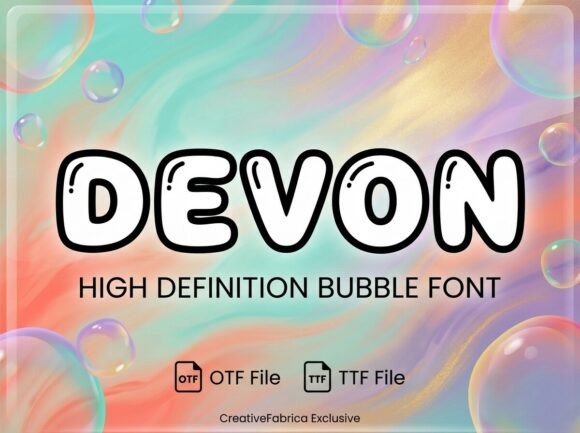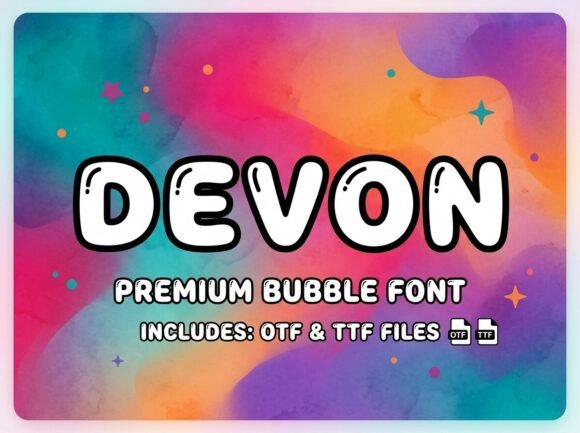
Introducing Devon Font: The Playful and Effervescent Typeface
Are you looking for a font that can add a touch of playfulness and fun to your designs? Look no further than Devon Font, a lighthearted display typeface that captures the essence of a carefree and lively spirit. With its unique and eye-catching design, Devon Font is perfect for creating engaging and memorable brand identities, invitations, logos, and social media headers.
Inspired by Glossy Soap Bubbles
Devon Font features thick, rounded letterforms that are designed to mimic glossy soap bubbles. The font’s chunky structural weight and airy personality make it perfect for creating a fun and playful atmosphere in your designs. The rounded letterforms also give the font a friendly and approachable feel, making it ideal for brands and businesses that want to appeal to a younger audience.
Rhythmic Highlight Accents for a 3D Effect
One of the standout features of Devon Font is its rhythmic “highlight” accents that create a 3D reflective effect. These accents add a touch of sophistication and depth to the font, making it perfect for creating high-impact designs that grab attention. The 3D effect also gives the font a sense of movement and energy, making it ideal for dynamic and playful brands.
Perfect for Independent Children’s Bath Product Branding
Devon Font is the premier choice for independent children’s bath product branding. The font’s playful and fun design makes it perfect for creating engaging and memorable brand identities that appeal to kids and parents alike. Whether you’re creating a brand identity for a children’s soap, shampoo, or bath bomb, Devon Font is the perfect choice.
Great for Pool Party Invitations and Creative Laundry Service Logos
But Devon Font isn’t just limited to children’s bath product branding. It’s also great for creating pool party invitations, creative laundry service logos, and high-impact social media headers. The font’s fun and playful design makes it perfect for any brand or business that wants to add a touch of whimsy and personality to their designs.
Key Features of Devon Font
- Lighthearted and playful display typeface
- Thick, rounded letterforms designed to mimic glossy soap bubbles
- Rhythmic “highlight” accents create a 3D reflective effect
- Chunky structural weight and airy personality
- Perfect for independent children’s bath product branding, pool party invitations, creative laundry service logos, and high-impact social media headers
Why Choose Devon Font?
So why choose Devon Font for your next design project? Here are just a few reasons:
- Unique and eye-catching design: Devon Font features a unique and eye-catching design that’s sure to grab attention.
- Playful and fun personality: The font’s playful and fun personality makes it perfect for brands and businesses that want to appeal to a younger audience.
- Versatile: Devon Font is versatile and can be used for a wide range of design projects, from branding and invitations to logos and social media headers.
- Easy to read: Despite its playful design, Devon Font is easy to read and can be used for both headings and body copy.
In conclusion, Devon Font is a lighthearted and playful display typeface that’s perfect for adding a touch of fun and personality to your designs. With its unique and eye-catching design, rhythmic highlight accents, and chunky structural weight, Devon Font is the premier choice for independent children’s bath product branding, pool party invitations, creative laundry service logos, and high-impact social media headers. So why not give Devon Font a try and see how it can add a splash of fun and personality to your next design project?